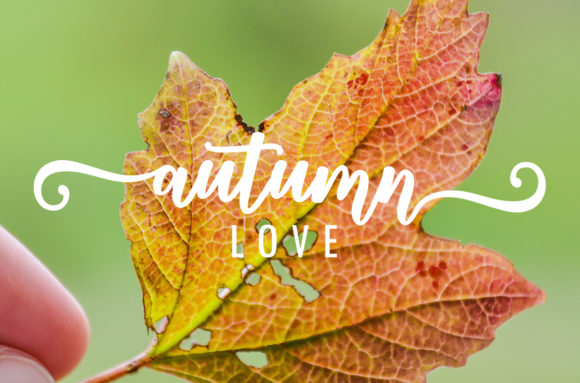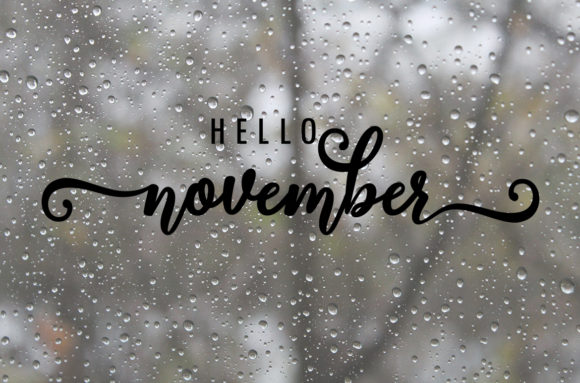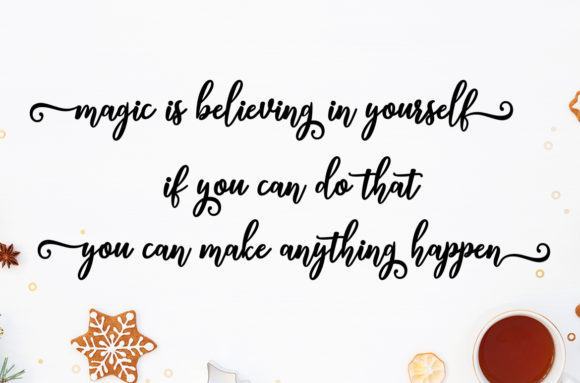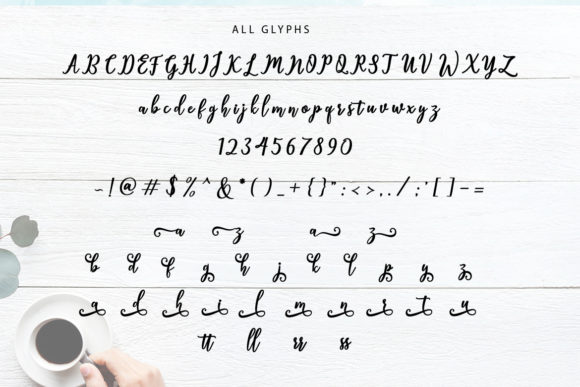
About Thatcher Script Font
Introducing “The Thatcher,” a whimsical script font designed to bring a playful and fun feel to your projects. This font is not just a typeface; it’s a design asset crafted with bouncy letters, adding a touch of happiness to your creations. “The Thatcher” is perfect for infusing joy into any design.
The bouncy letters of “The Thatcher” create a whimsical and playful vibe, making it ideal for projects that need a lighthearted touch. Whether you’re working on invitations, posters, greeting cards, branding, or any design that requires a sprinkle of happiness, this font delivers with its cheerful and animated style.
Its versatility allows “The Thatcher” to adapt seamlessly to different design contexts. Greeting cards and invitations designed with this font exude a joyful and celebratory atmosphere. Posters and branding materials benefit from the font’s whimsical script, adding a touch of playfulness to the overall design.
The playful feel of “The Thatcher” makes it a delightful choice for a wide range of applications. Whether you’re crafting designs for children or simply want to add a cheerful touch to your work, this font is a design companion that brings happiness to your creative projects.
In summary, “The Thatcher” is more than just a font; it’s a design asset that brings a whimsical and playful script style to your projects. Embrace its bouncy letters for invitations, branding, and more, and let “The Thatcher” add a sprinkle of happiness to your designs, creating a joyful and animated atmosphere.